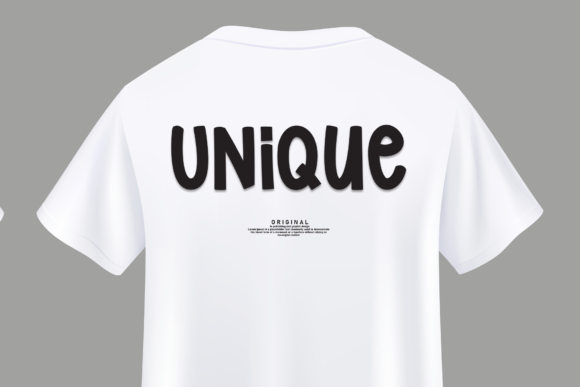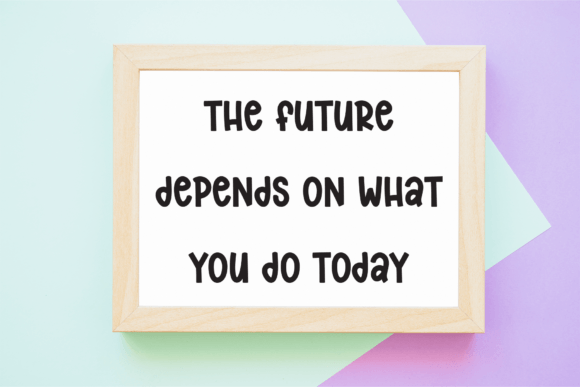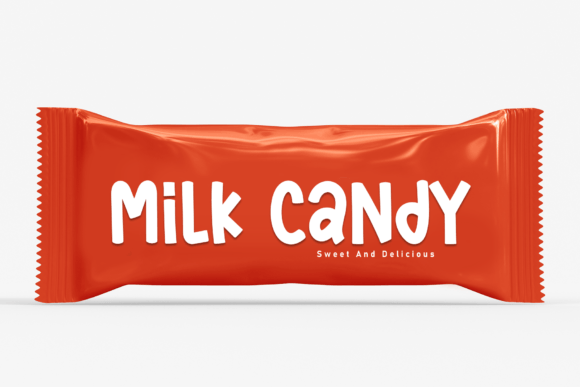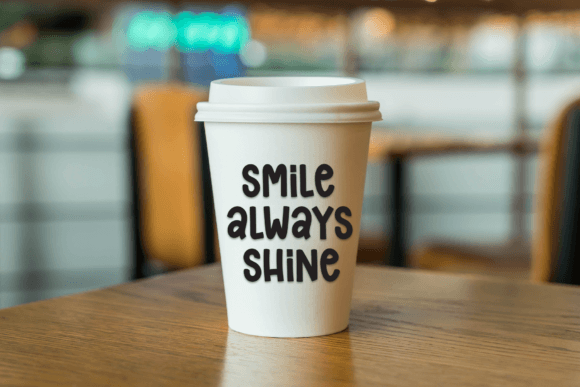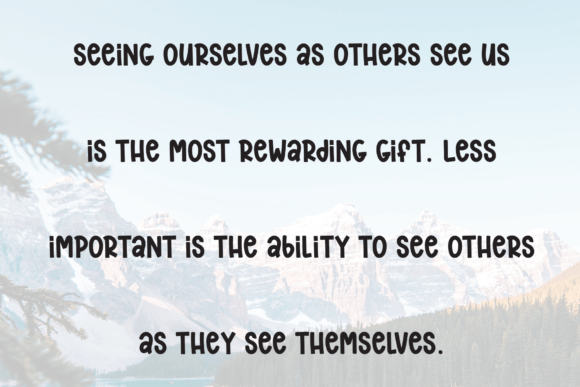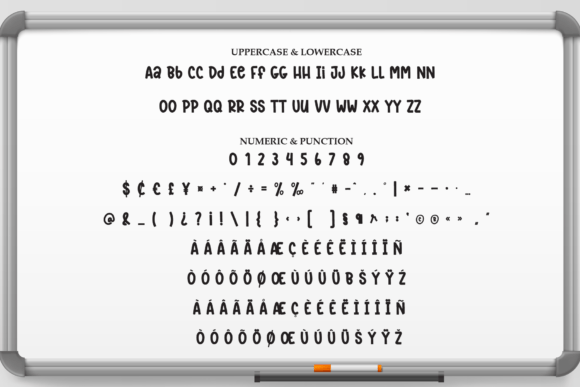
Introduction to Marker Board Font
Do you ever find yourself sitting at your desk, surrounded by scribbled notes and half-finished ideas, searching for that perfect font to bring your creative project to life? For designers, the right font can be the difference between a good design and a great one. And when it comes to adding a touch of warmth and personality to your work, few fonts are as charming as the Marker Board Font.
With its sweet and friendly handwritten style, the Marker Board Font is perfect for writing wedding invitations, cards, or any other design that needs a little extra love. Its versatility makes it a valuable resource for designers, and the best part? You can download it for free, giving you the creative freedom to experiment and bring your ideas to life.
Key Features of Marker Board Font
- Unique, handwritten style with a creative, artistic feel, ideal for various projects.
- Includes a variety of characters, including uppercase and lowercase letters, numbers, and punctuation marks.
- Features a large character set with over 500 glyphs, making it suitable for various design applications.
- Perfect for use in creative projects, such as invitations, posters, and signage, where a unique, handwritten style is desired.
Honest Review: Marker Board Font
I recently came across the Marker Board Font and I must say it’s been a great addition to my design arsenal. This free download has been a game-changer for my creative projects, offering a unique and playful touch.
- ✨ High-quality design: The font is crisp and clear, making it perfect for a variety of applications.
- ⚠️ Limited character set: The font only includes a basic set of characters, which may not be sufficient for more complex designs.
- ⚠️ Not ideal for formal projects: The playful nature of the font may not be suitable for more formal or professional projects.
Overall, I’m impressed with the Marker Board Font and would recommend it to designers looking for a fun and creative design resource. It’s a great addition to any design library and can add a unique touch to a variety of projects.
Common Use Cases for Marker Board Font
Marker Board Font is perfect for creative projects such as infographics, posters, and presentations. Its unique design makes it an excellent choice for adding a personal touch to your work. With its high-quality design and transparent background, this font is sure to elevate your creative project.